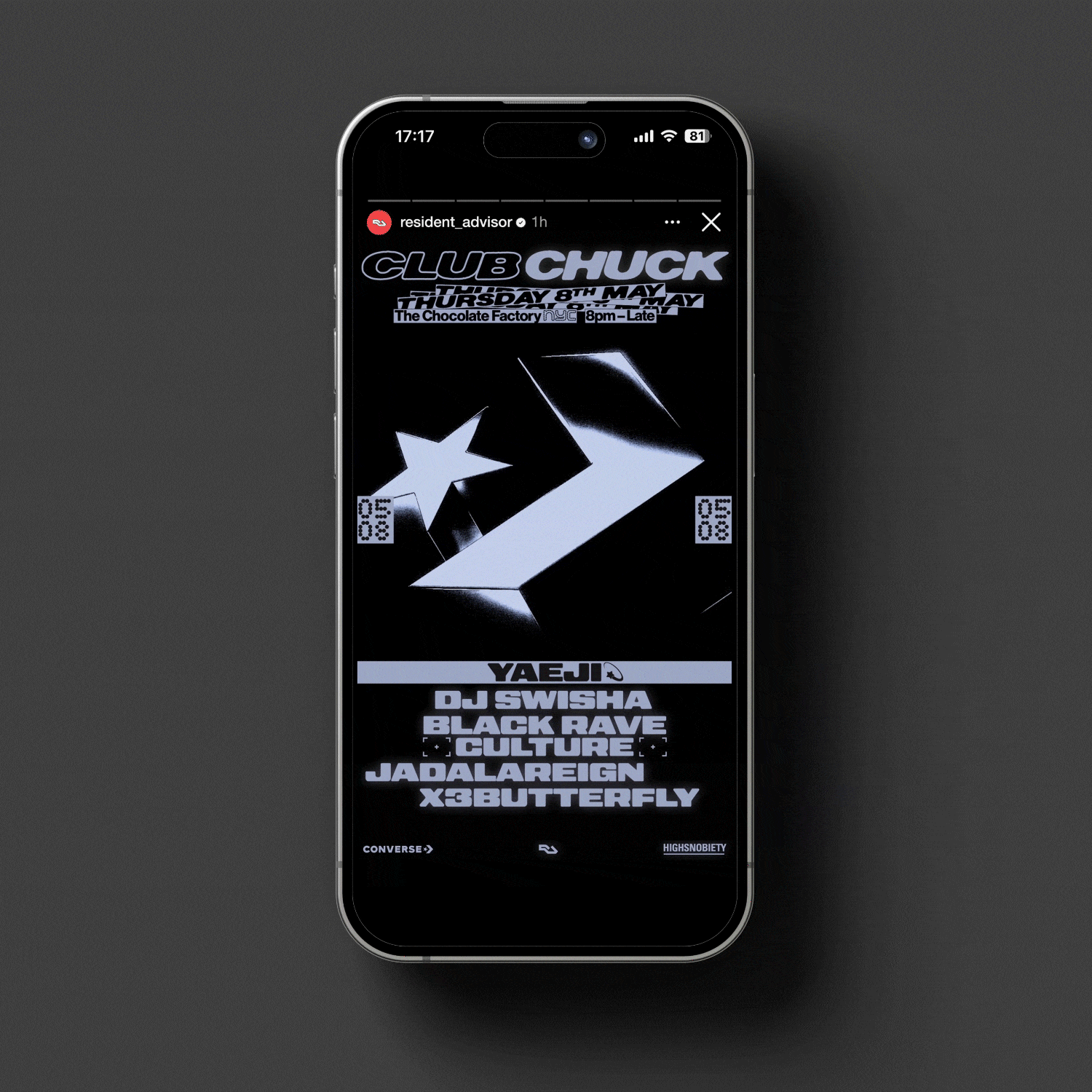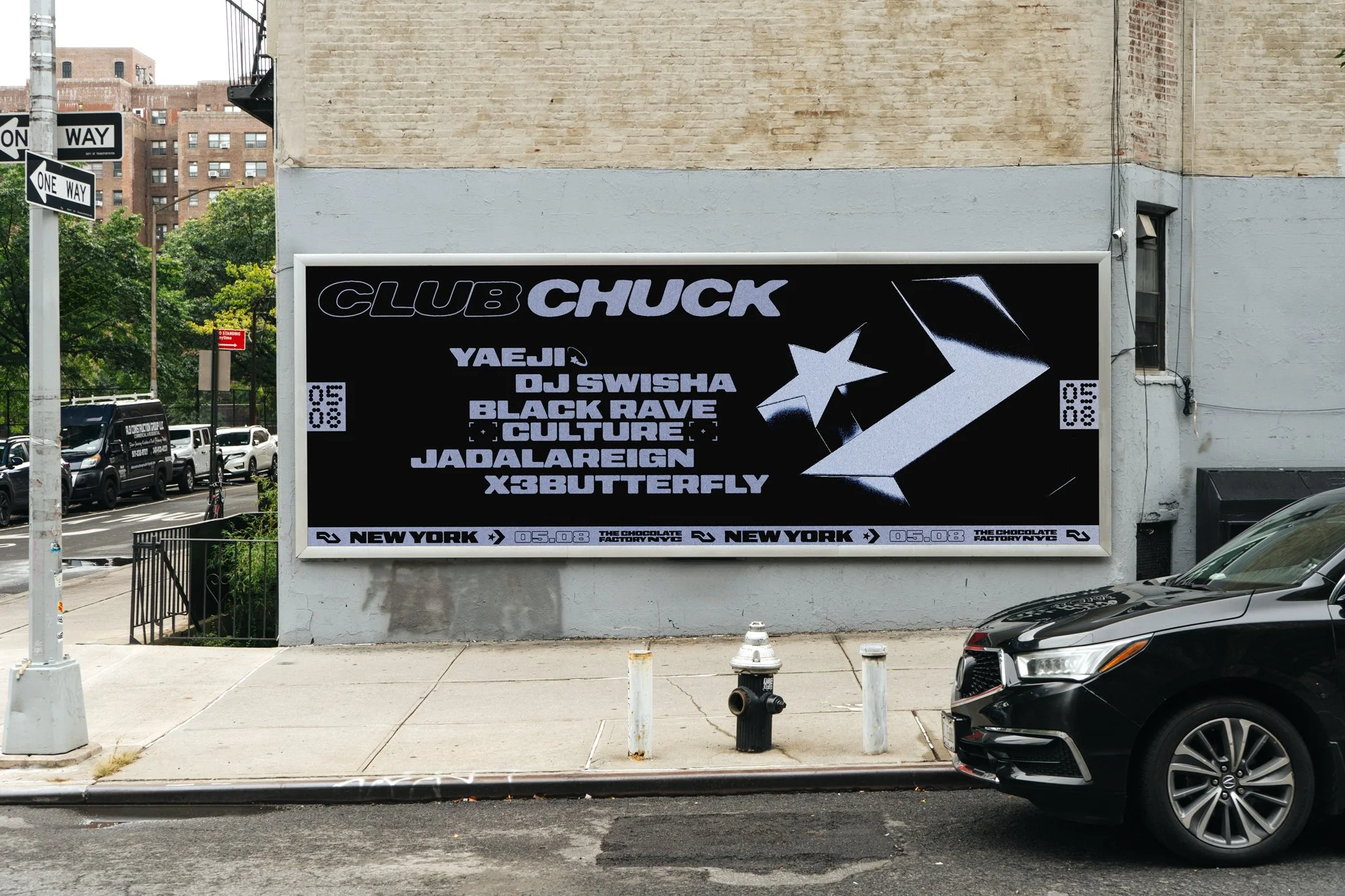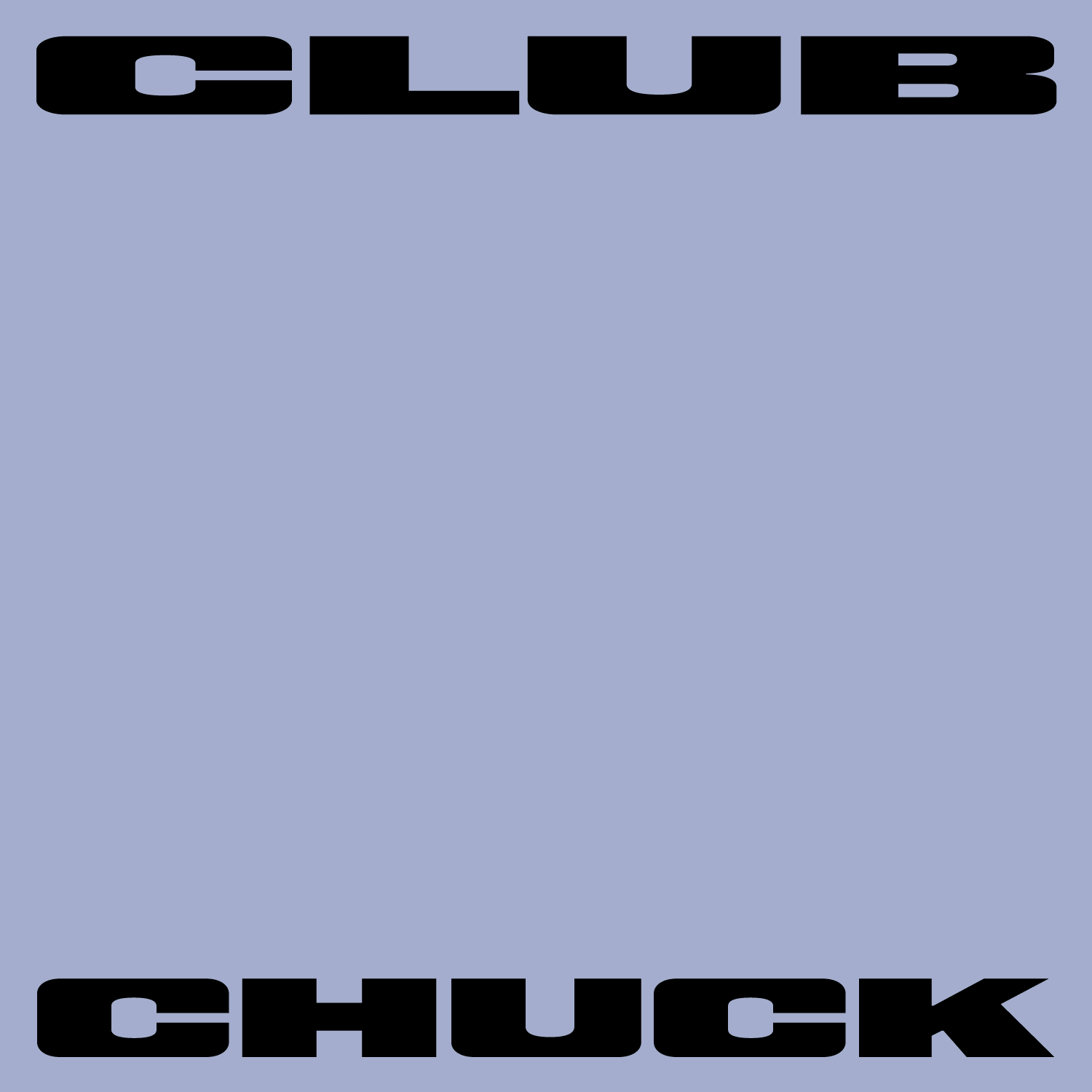
Club Chuck
A cohesive graphic language for a Converse x Resident Advisor rave
In May 2025, Resident Advisor, Converse and Highsnobiety hosted Club Chuck, an exclusive rave in East Williamsburg, Brooklyn, celebrating the cultural legacy of the Chuck Taylor sneaker. Working with the Resident Advisor team, a dynamic visual language was developed to unify promotional materials and onsite assets, drawing from the energy of rave culture while speaking to a contemporary audience. This flexible identity helped shape the atmosphere of the event, positioning the Chuck Taylor as both iconic and current. Club Chuck received over 12,000 sign-ups within two weeks of launch.
Alongside the Club Chuck event, a radio show takeover was hosted by Dublab and Resident Advisor to extend the campaign’s reach. To create a clear distinction while maintaining visual cohesion, the graphic language was applied consistently across both platforms with a distinct alternative colour palette.
The packaging used to ship out orders and for sellers to post their items to r l v d needed to be sleek and reflect the luxurious clothes sold on the site. As the brand uses limited colours, the brief lent itself to exploring typographic solutions to each packaging item. This extended to branded clothing for employees as well as phone cases, water bottles and lanyards. The range of deliverables required allowed the exploration of different applications of the identity along with supporting taglines that r l v d uses throughout their branding.
The digital campaign, launched on social media, needed to grab viewer’s attention quickly and efficiently communicate what the brand does to those unfamiliar. The final concept utilises a scanner to reveal different clothes one after the other in pairings. This concept visually demonstrates the process of selling and acquiring new clothes using rlvd’s services.
Escentric Molecules x The Face
Immersive environmental design for an innovative fragrance pop-up
The Face commissioned environmental graphics for their pop up event collaborating with the experimental fragrance brand Escentric Molecules. The brief required EM’s dynamic brand to be repurposed to decorate the boutique studio in which the event was to be hosted.